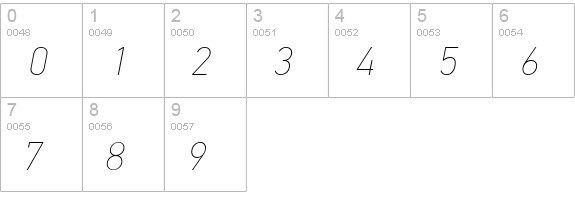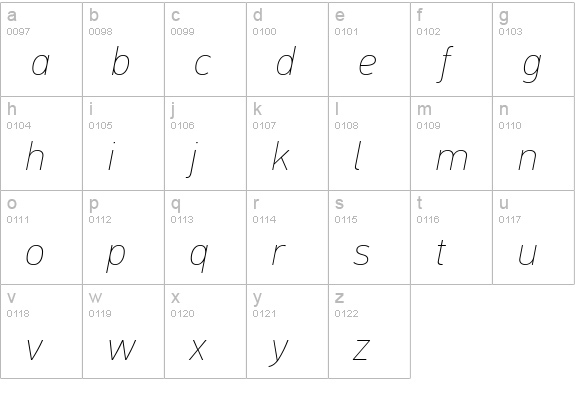
PFDinTextPro-ExtraThinItalic Font Details
PFDinTextPro-ExtraThinItalic font exudes elegance and sophistication with its delicate and slender design. The italic style adds a touch of flair and refinement to any project, making it perfect for adding a touch of class to invitations, branding materials, or editorial designs. This font is ideal for creating a sense of modernity and luxury, while maintaining a sense of subtlety and grace. And the best part? PFDinTextPro-ExtraThinItalic font is available for free download at FontsMarket.com. You can effortlessly elevate your designs with this exquisite font without breaking the bank. Whether you're a professional designer or a creative enthusiast, this font is a must-have in your toolkit. Download PFDinTextPro-ExtraThinItalic font today and let your creativity shine with its sleek and stylish appearance.